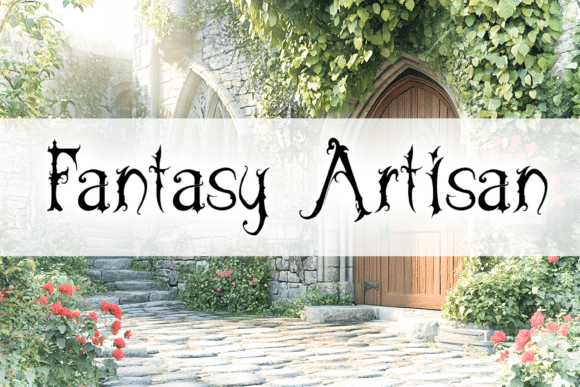
Fantasy Artisan Font
Transform your creative projects with the enchanting Fantasy Artisan Font! Inspired by the mystique of fairy tales and the allure of magical realms, this handcrafted typeface blends whimsical elegance with an air of mystery. Perfect for fantasy-themed designs, book covers, poetry, event invitations, and more, this font will breathe life into your storytelling.